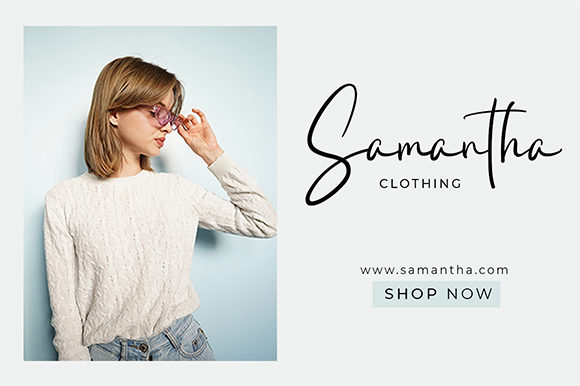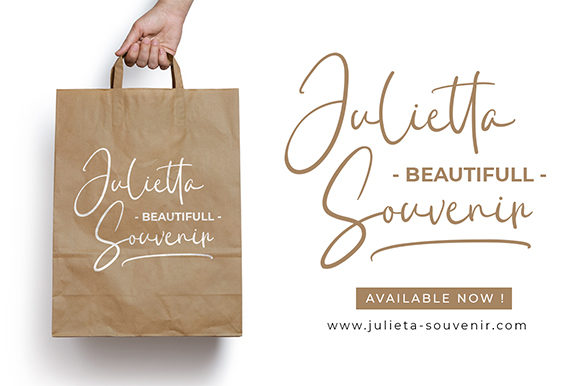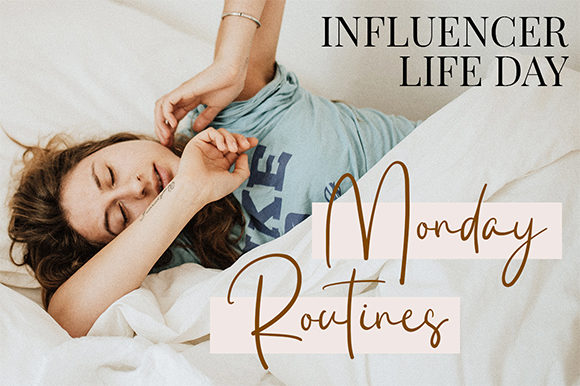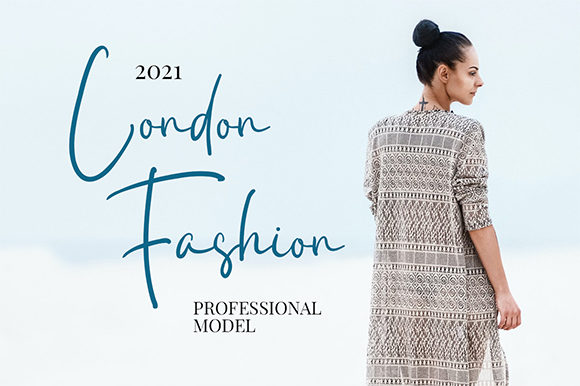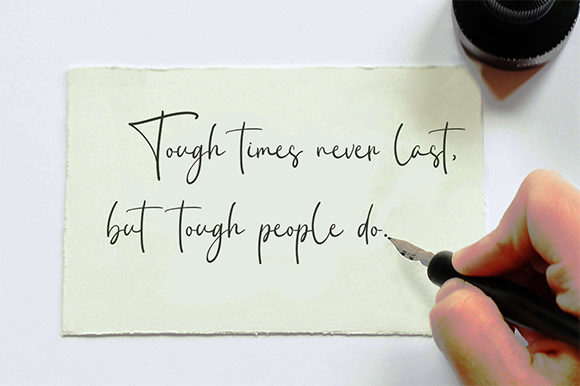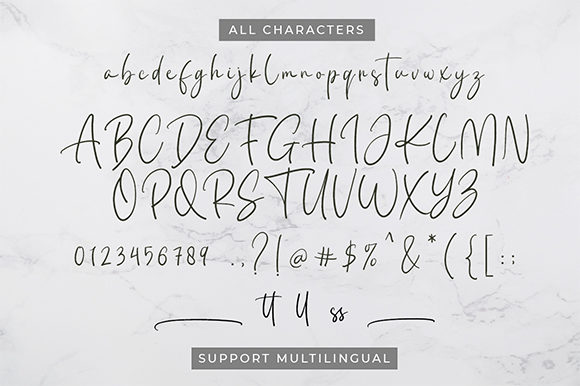
Julietta Kissing Font
About Julietta Kissing Font
Julietta Kissing is a beautiful light handwritten font with a unique feel and a stunning impact. It will add a luxury spark to any design project that you wish to create!